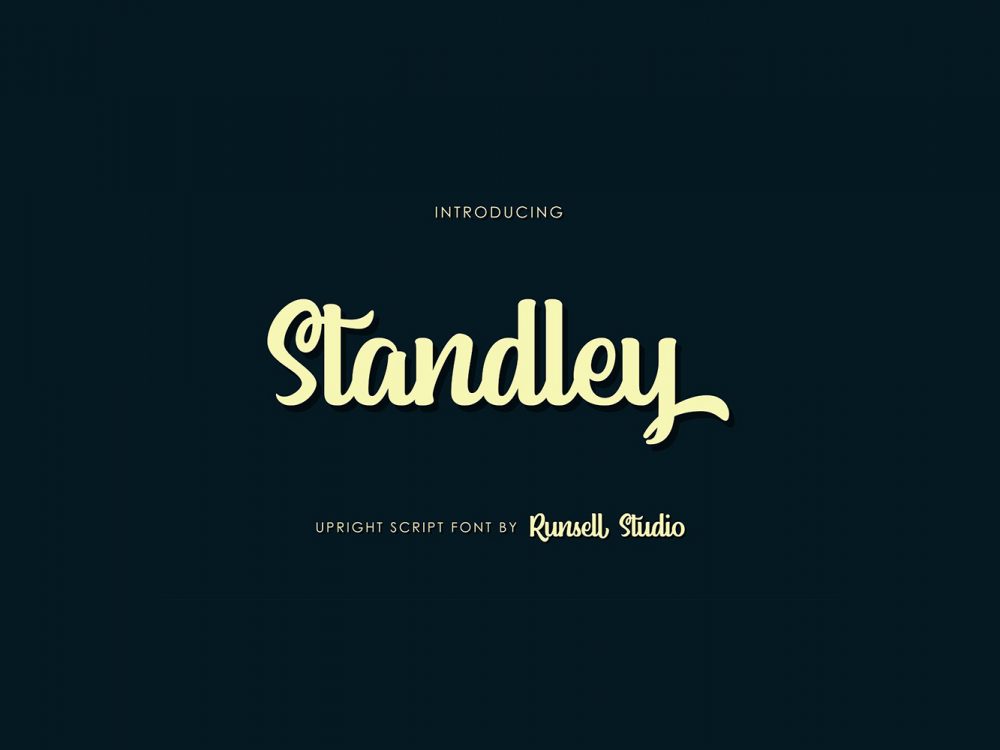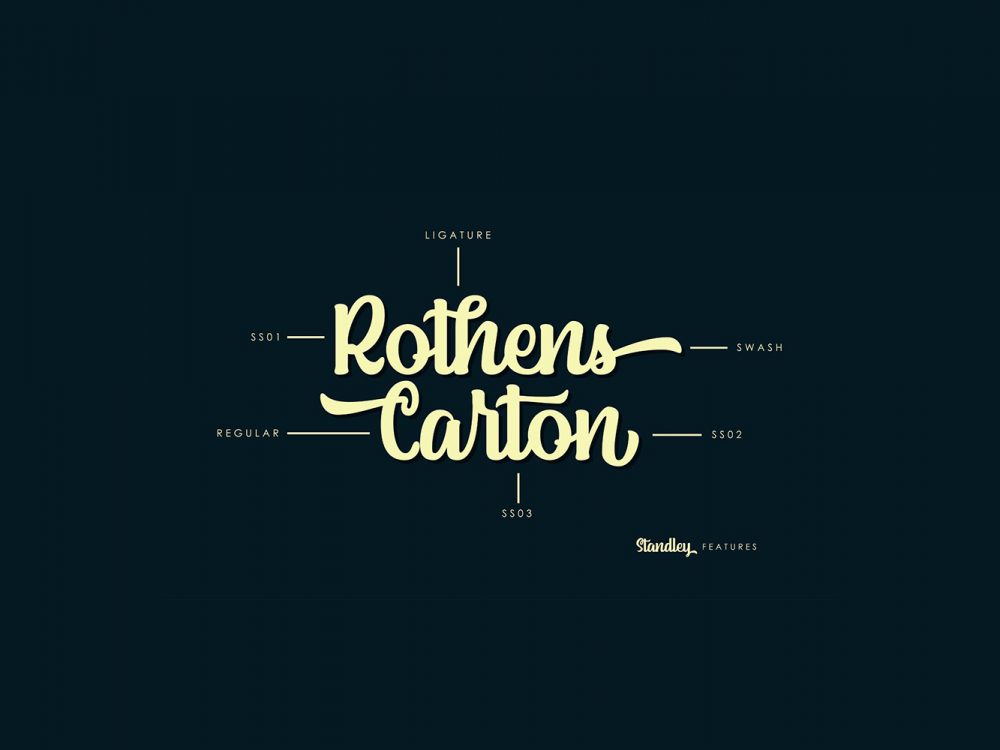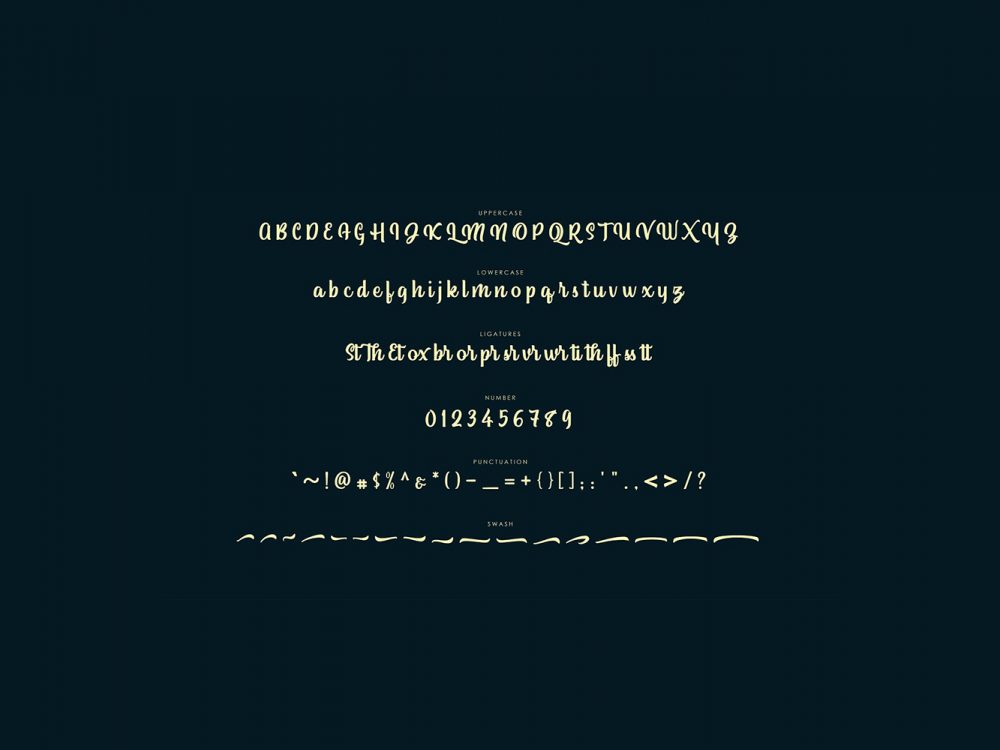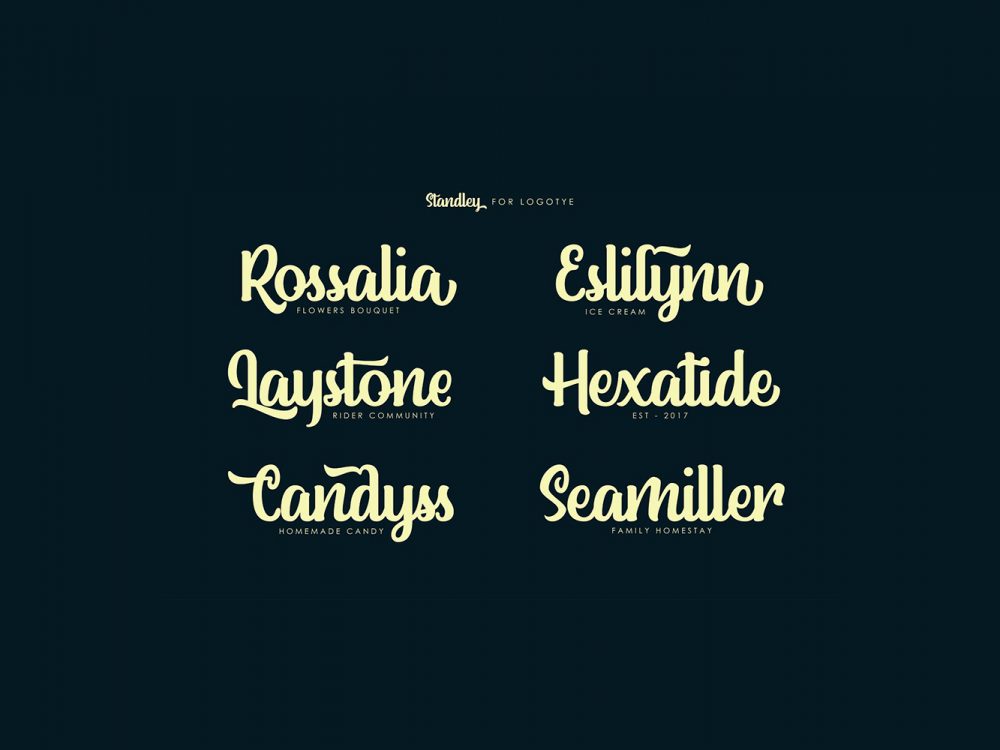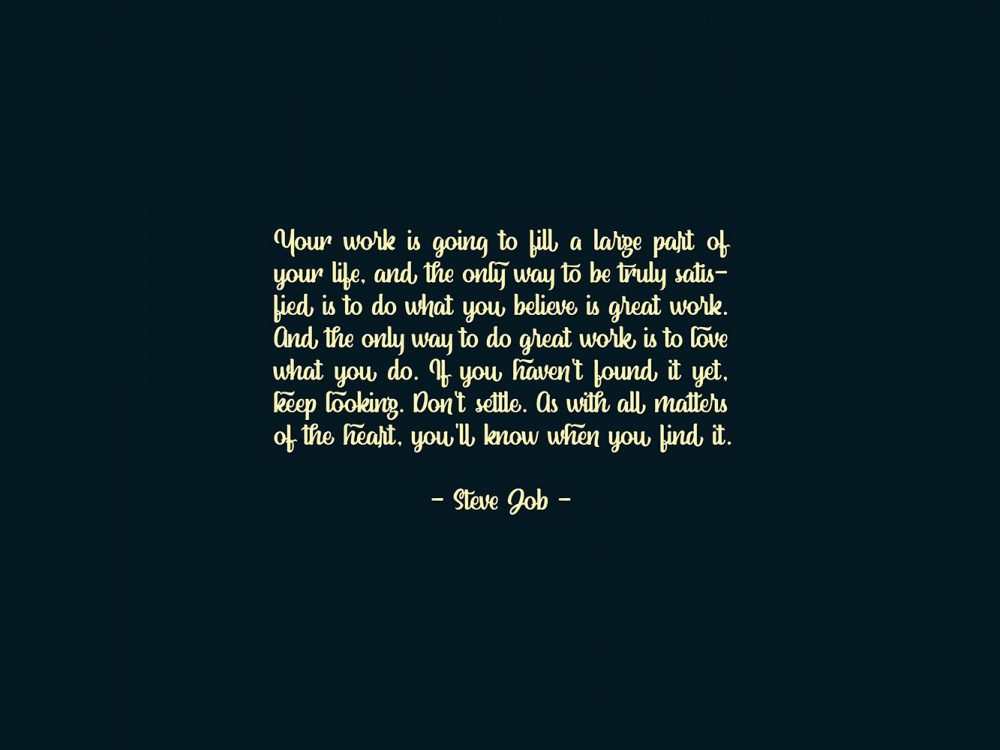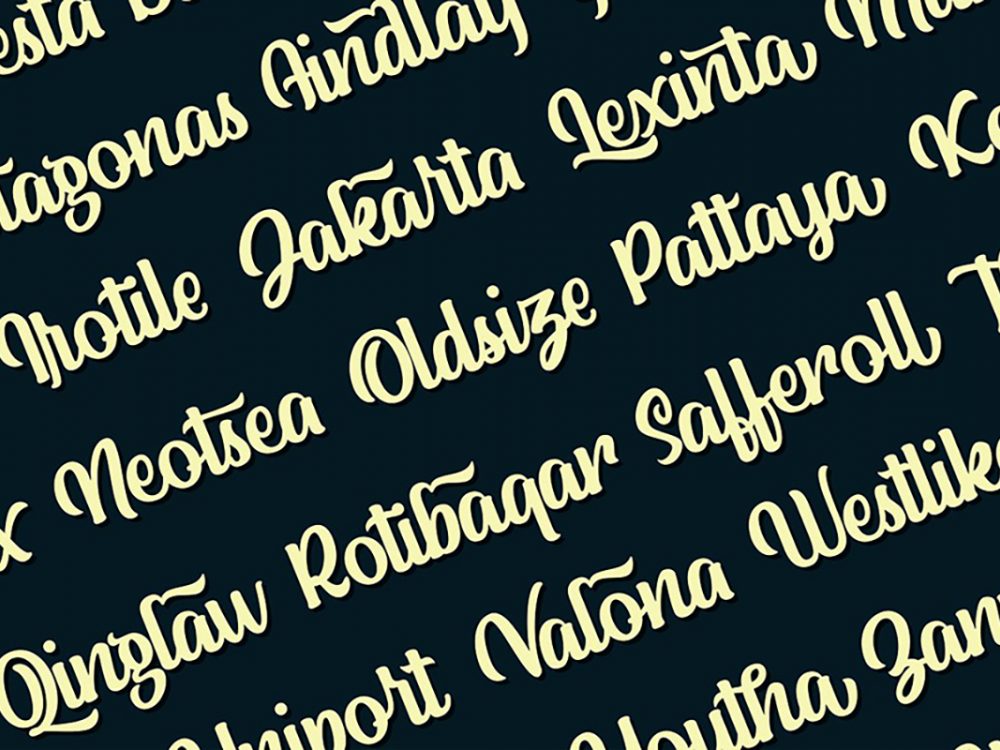
Standley Upright Script Font
If you need to develop a unique design for logos, posters, labels, flyers, postcards, prints, then the Standley Upright Script Font is perfect for you. The font has good boldface and austere style. If you wish to use it for commercial work please buy the full version.